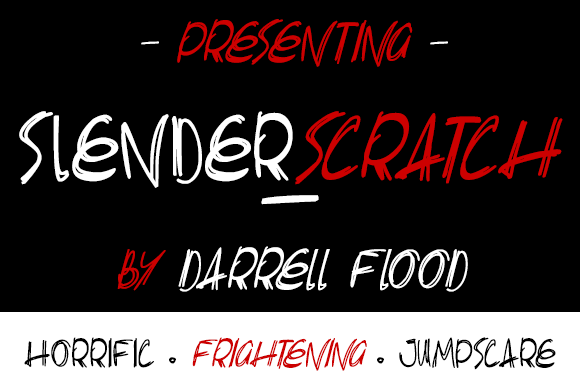
Slenderscratch is the spine-tingling display font that will send shivers down their spine! Its eerie, horror-inspired design will make your designs stand out from the crowd.
Imagine your haunted house posters, Halloween flyers, and horror movie titles taking on a new, spine-chilling life. Slenderscratch's thin, tall, and scribbly letters will create the perfect atmosphere for any spooky or chilling project.
Not only is Slenderscratch an eye-catching font, but it's also incredibly versatile. Use it for everything from web design to branding and social media posts. The possibilities are endless!
So, if you're looking for a font that will make your designs truly unforgettable, look no further than Slenderscratch. Download it today and unleash your inner darkness!